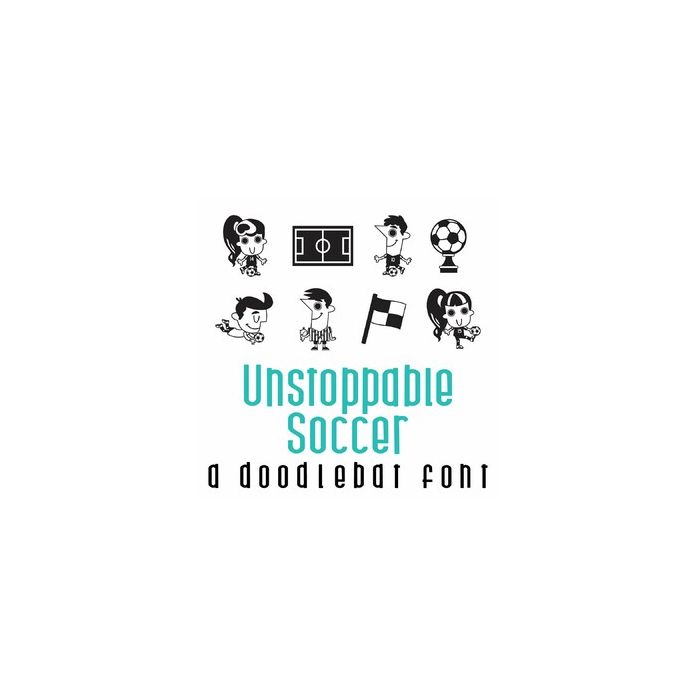
Unstoppable Soccer Doodlebat Font
This fun doodlebat font features 26 soccer themed images. Perfect for cards, gifts, decor, crafts, scrap book pages, planner stickers and more